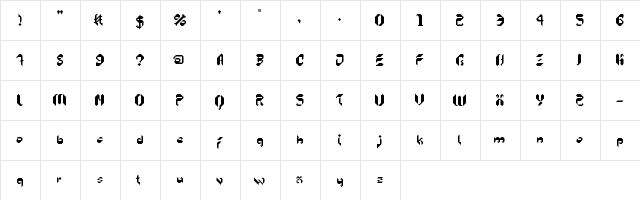
5Kreeper Regular
| Designer | Noah - 11 year old typomaniac |
Design Context for 5Kreeper Typeface
5Kreeper is a composed and adaptable typeface that performs quietly and consistently across a wide range of design contexts.